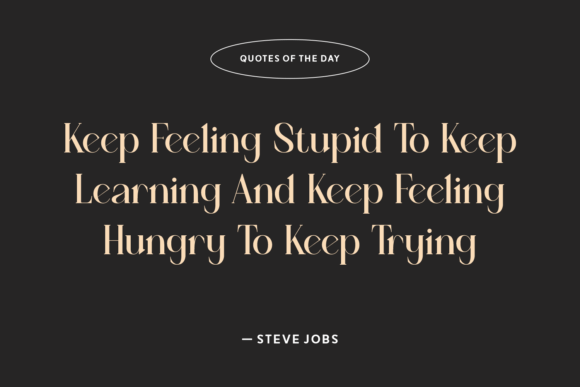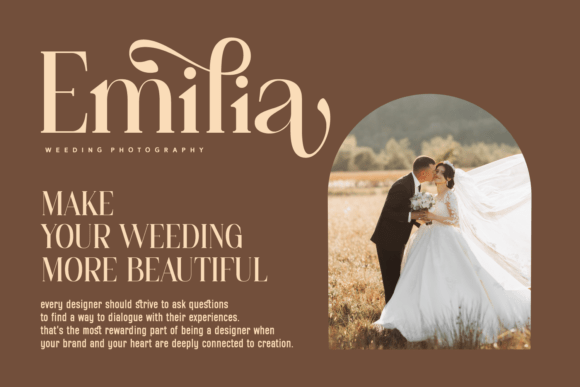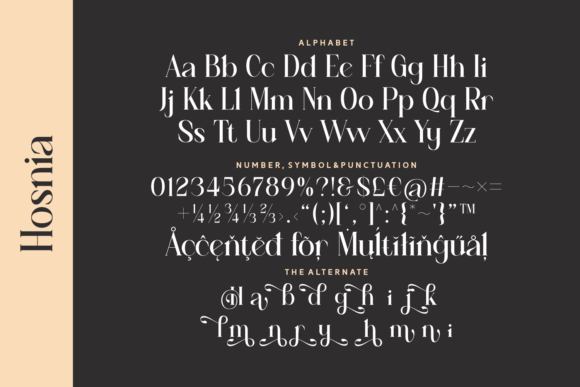
Introduction to Hosnia Font Font
Fonts play a crucial role in design, and the Hosnia Font font is a typeface that brings both character and versatility to any project. Whether you’re working on a branding project, a website, or a print design, the Hosnia Font font offers a unique style that can elevate your work.
Hosnia is a modern elegant serif font with a luxurious blend of refined letterforms and artistic swashes.
Featuring graceful curves, creative ligatures, and bold sophistication, Hosnia is ideal for branding, packaging, fashion editorials, wedding invitations, and high-end logos This typeface strikes the perfect balance between timeless elegance and stylish creativity.
Key Features of Hosnia Font Font
Why Choose Hosnia Font Font?
The Hosnia Font font is more than just a typeface – it’s a design tool that helps you communicate your message with style and clarity. Its unique character set and versatile design make it suitable for a wide range of applications, from elegant invitations to bold headlines.
With its carefully crafted letterforms and balanced proportions, the Hosnia Font font ensures readability and visual appeal across all mediums.
What makes Hosnia Font font special?
The Hosnia Font font stands out with its unique design, exceptional readability, and versatility across various design applications.